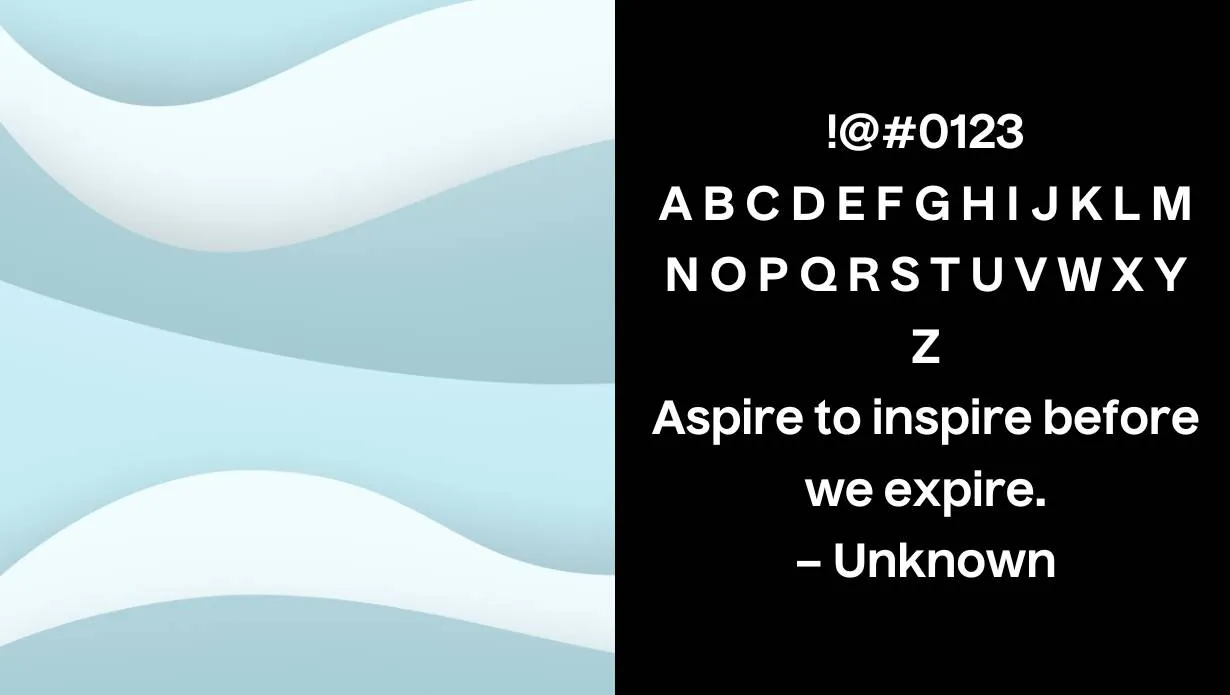
Nuckle Font is a beautiful sans-serif font that was created by designer Linda Lees. The font is inspired by the lettering on old sans-serif typefaces. This font is perfect for any project that needs a touch of elegance and charm. This font is available in defined weights and styles from regular to extra bold.
This font has special characters that will provide an extraordinary touch when used with ibm plex sans font. This Font includes a full set of punctuation marks, as well as numbers and symbols.
| Name | Nuckle Font |
| Designer | Linda Lees |
| Style | Sans-serif |